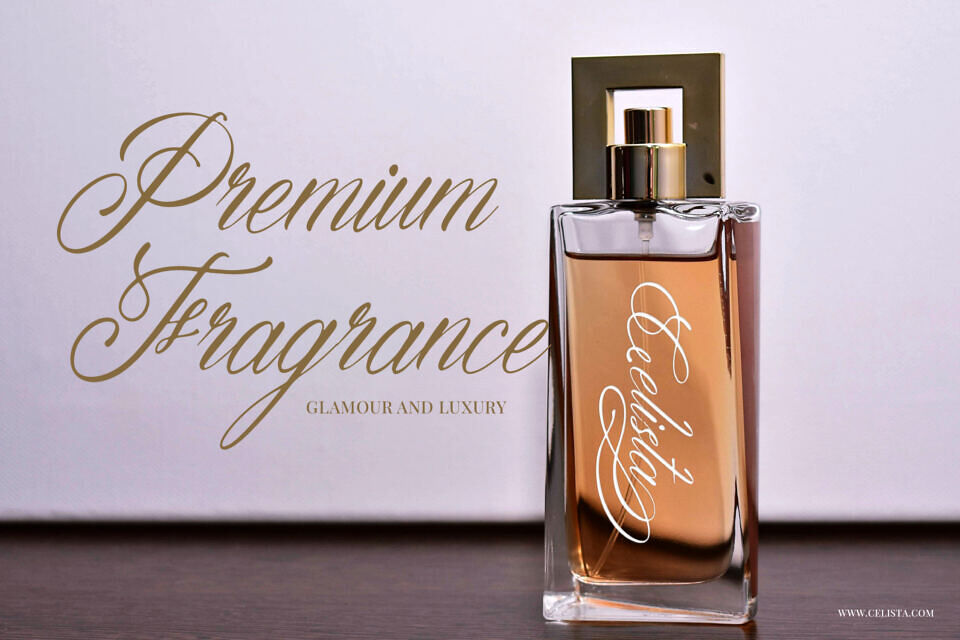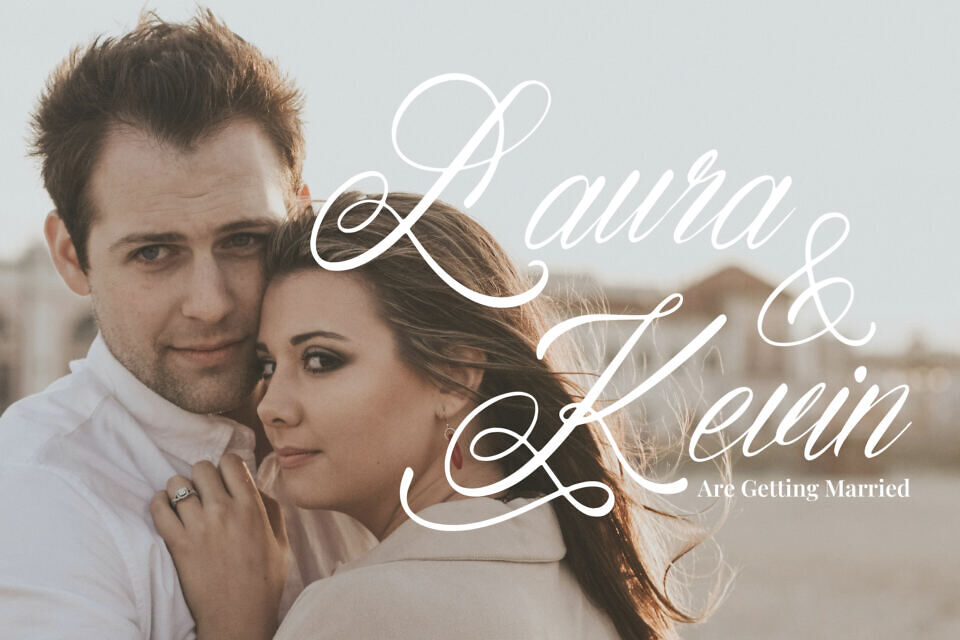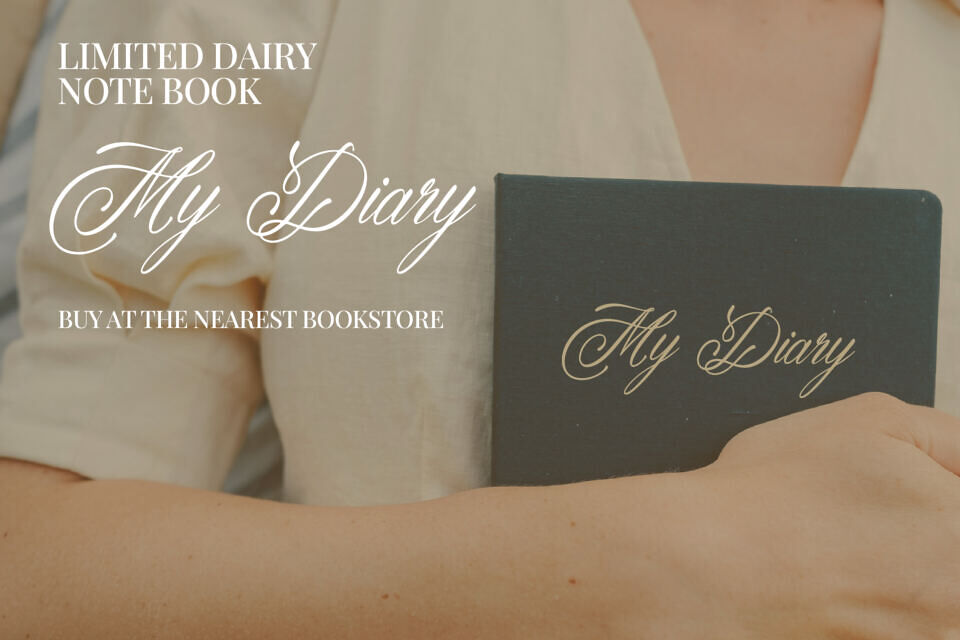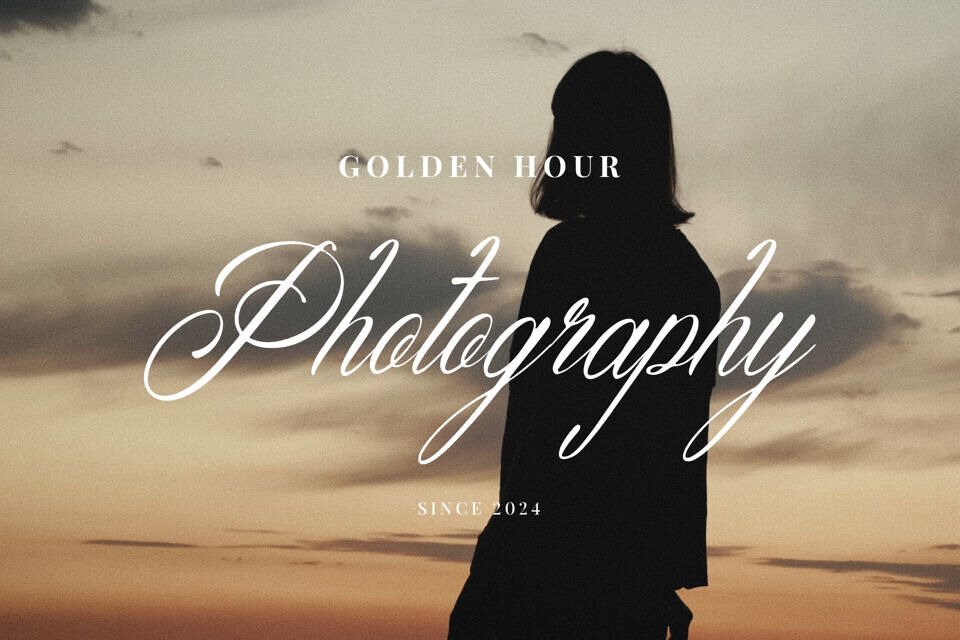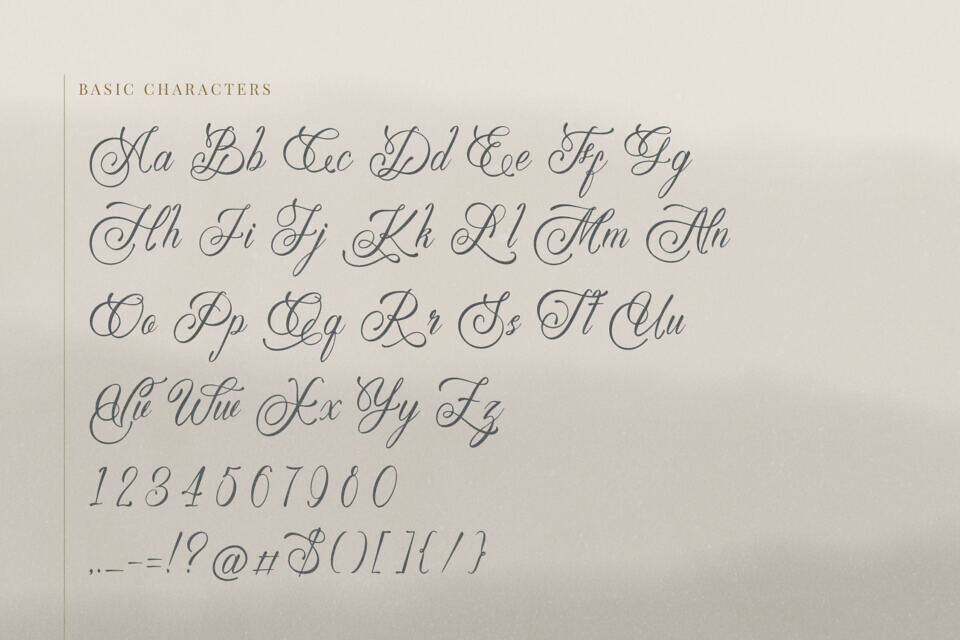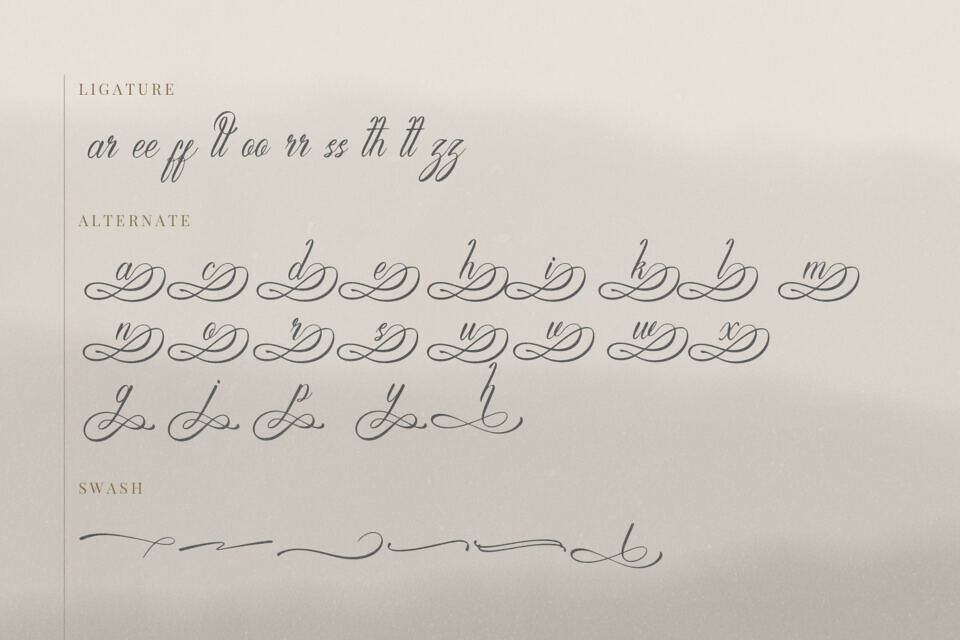
Maellen Font
Maellen is a Modern and elegant Script font from Denustudios, suitable for any projects such as: logos, branding projects, homeware designs, product packaging, mugs, quotes, posters, shopping bags, t-shirts, book covers, name card, invitation cards, greeting cards, label, photography, watermark, special events, and all your other lovely projects that need a beautiful script taste.